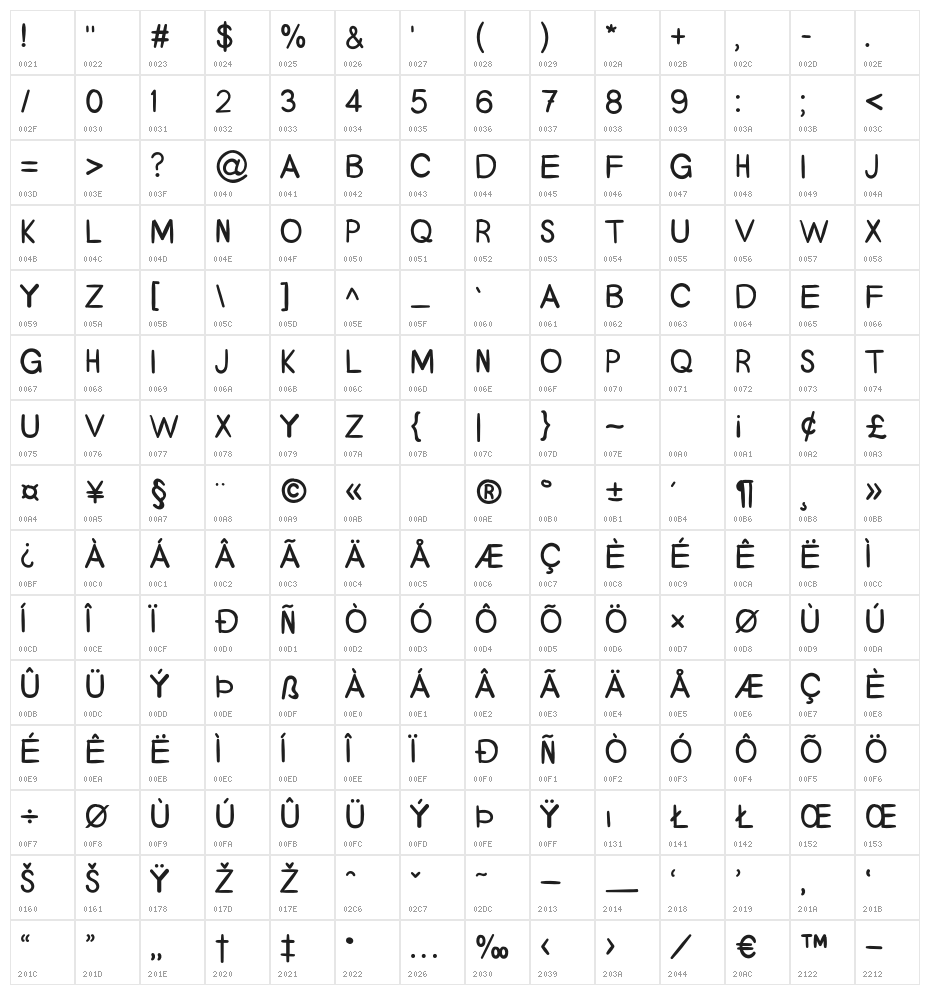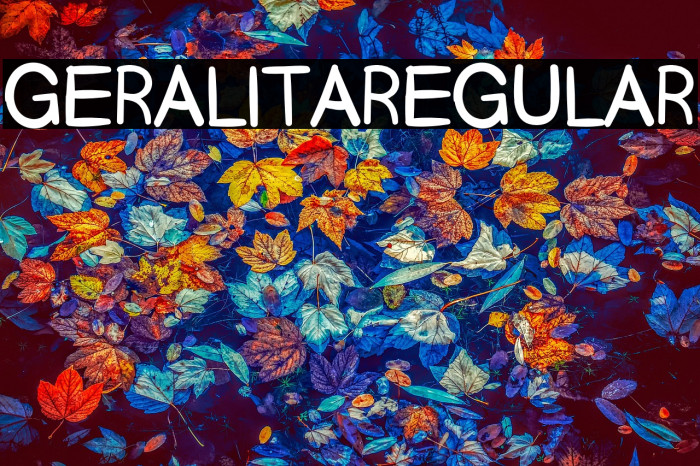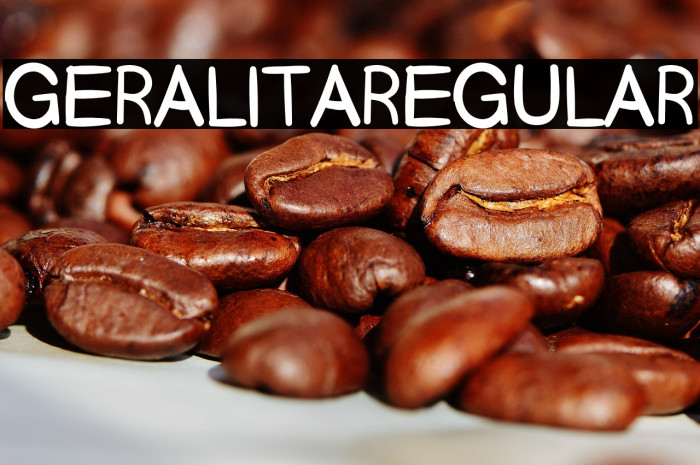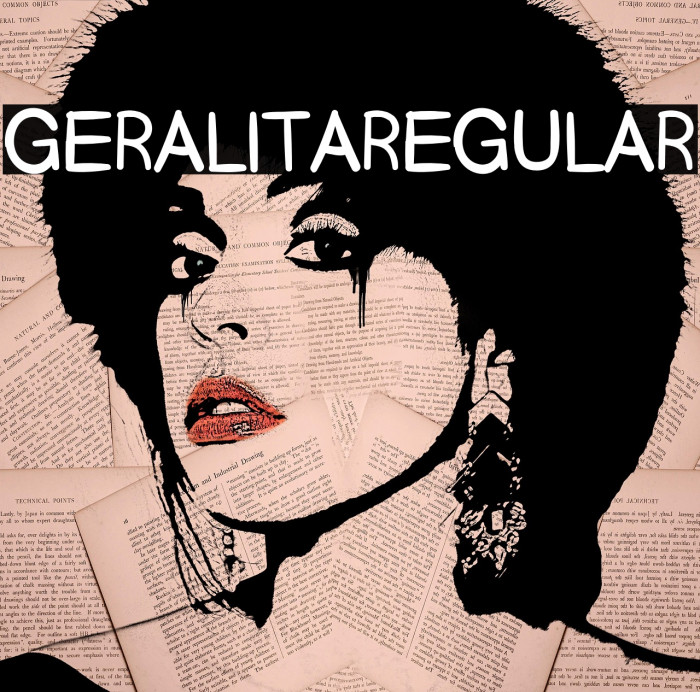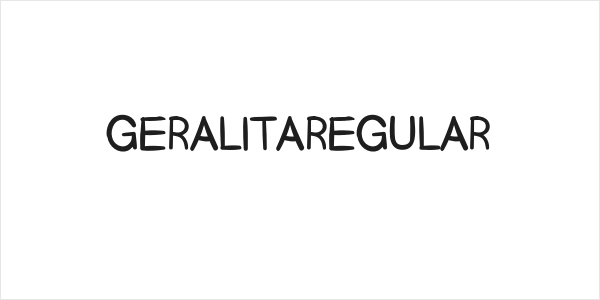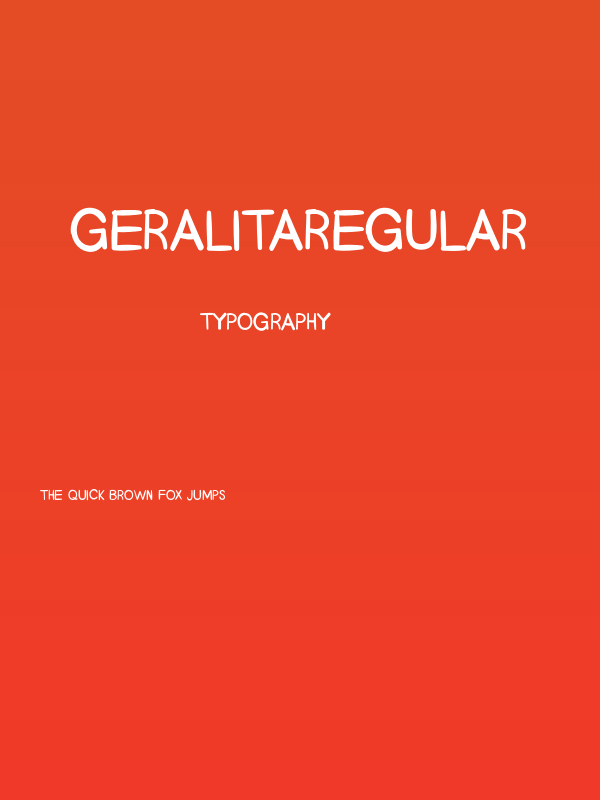
GeralitaRegular Font
GeralitaRegular Description
This font features a playful and casual handwritten style, characterized by its rounded edges and slightly irregular letterforms. The strokes are consistent in weight, providing a uniform appearance across all characters. The uppercase and lowercase letters maintain a friendly and approachable look, making it suitable for informal and creative projects. The numerals and special characters are designed to match the overall style, ensuring cohesion throughout any text. Its simplicity and charm make it versatile for various design needs.
| Proposed Projects | Ideal for children's books, greeting cards, casual branding, and social media graphics. |